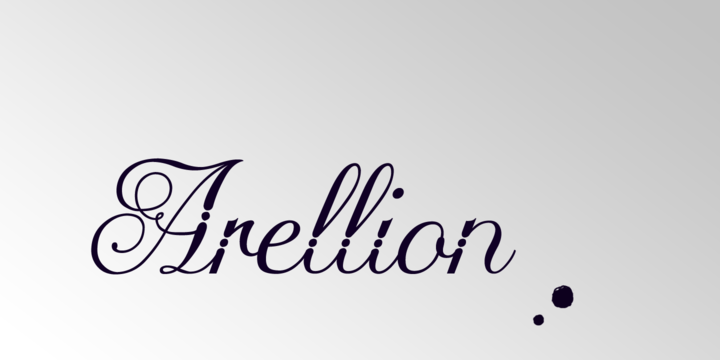
Arellion
by Typesgal
Arellion is a handdrawn script typeface. Ideal for signs where elegancy is needed. The pearls in every character make it a unique choice and initial variants as well as the swashes can raise it’s spectacle further.